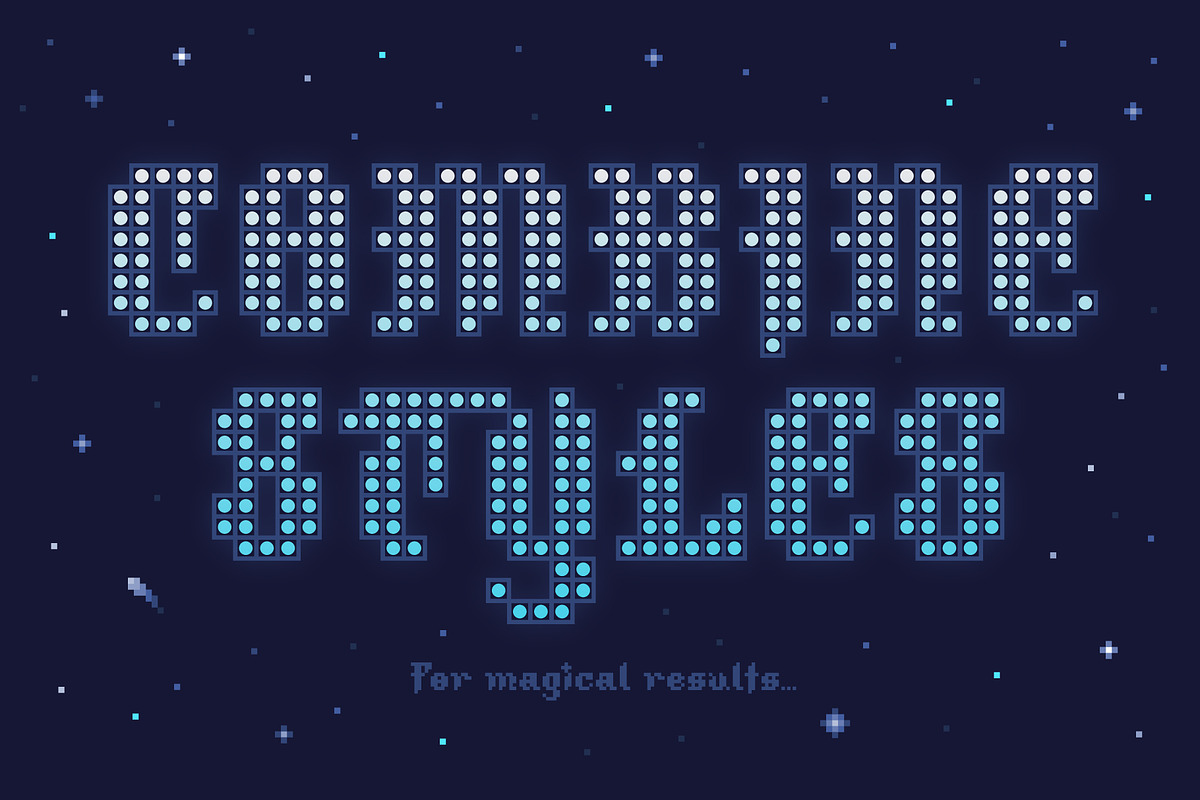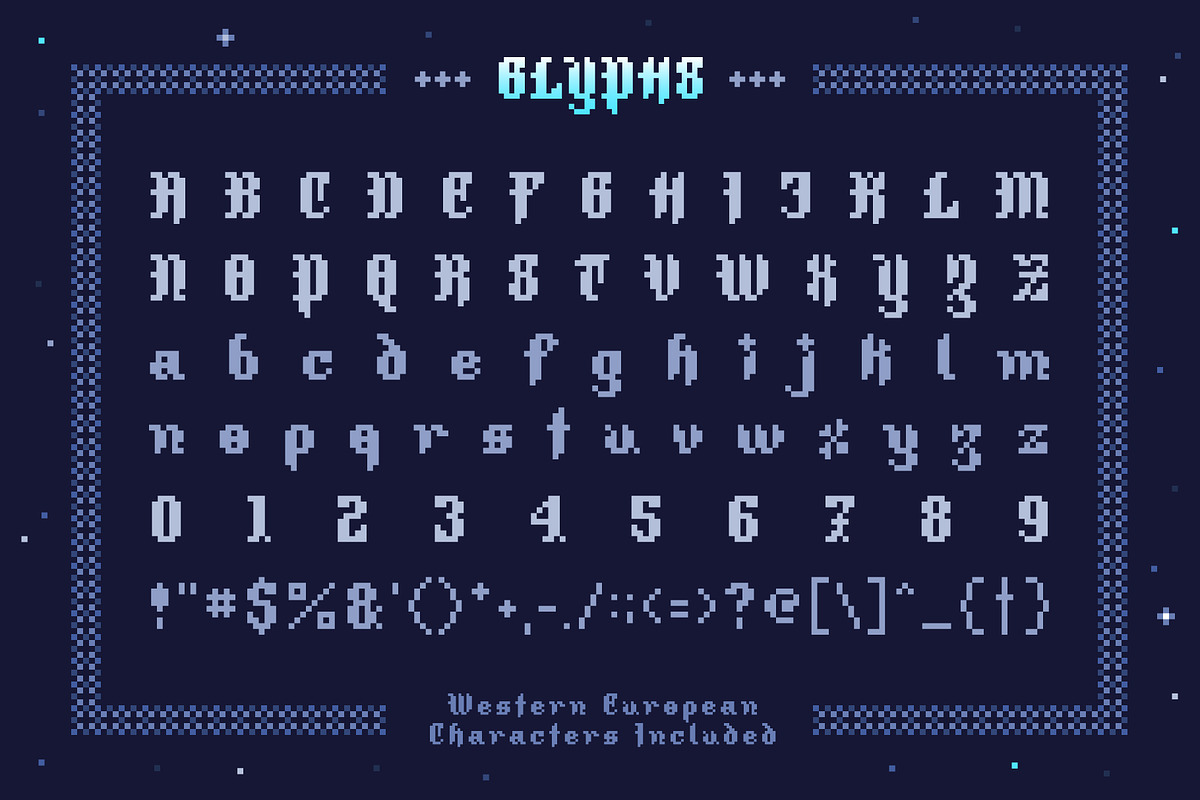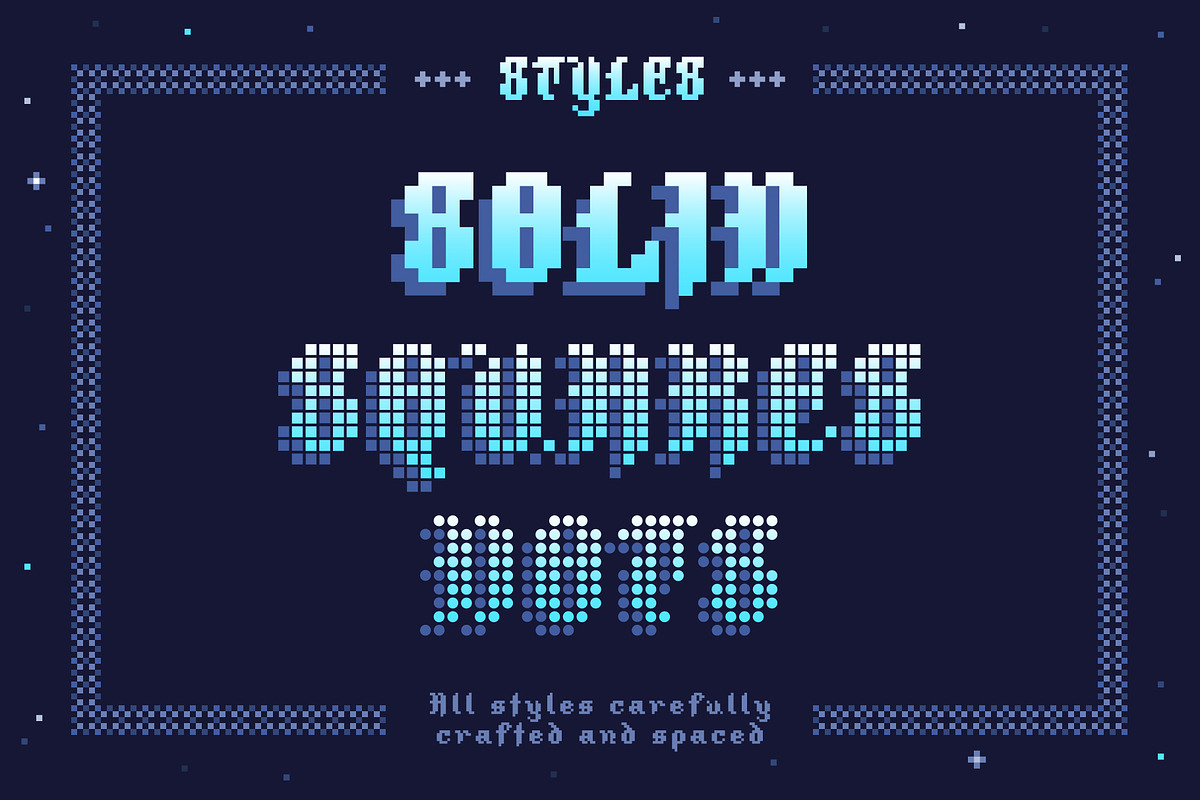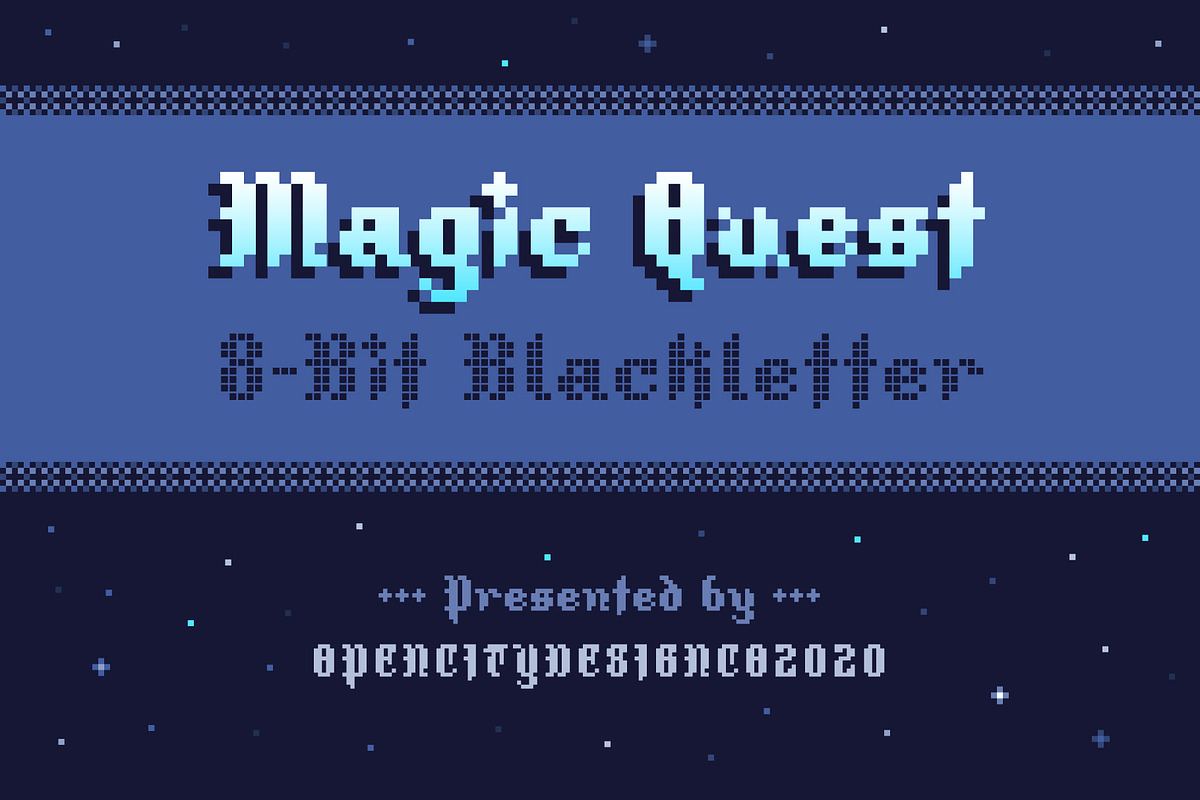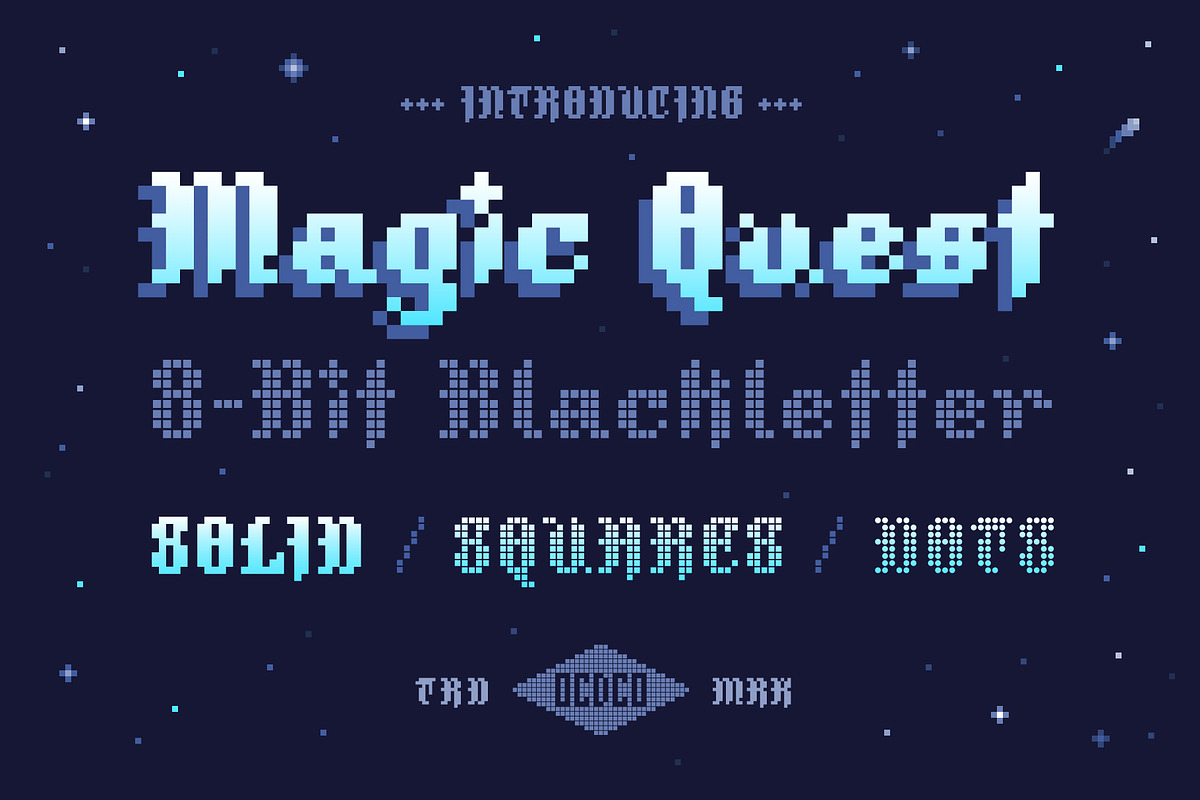
Magic Quest - 8-Bit Blackletter
Retro-futuristic and fantastical in style, Magic Quest is a fun-to-use font-set that harkens back to the classic hero’s journey pc games of old. It comes in 3 (combinable) styles: Solid, Squares, and Dots - each carefully crafted and spaced.
Give your work that magical cool factor with this stylish and minimal blackletter.